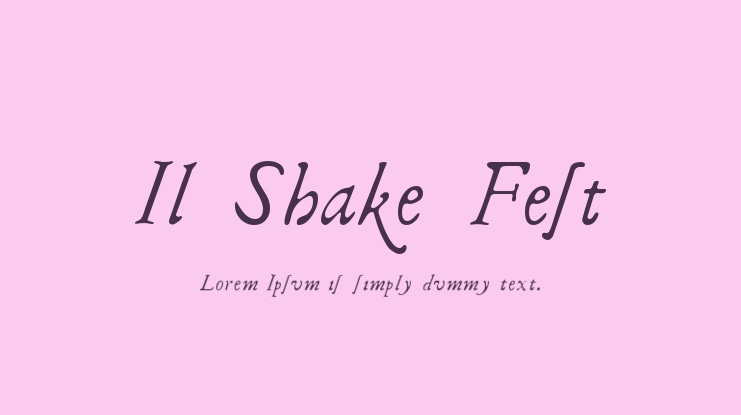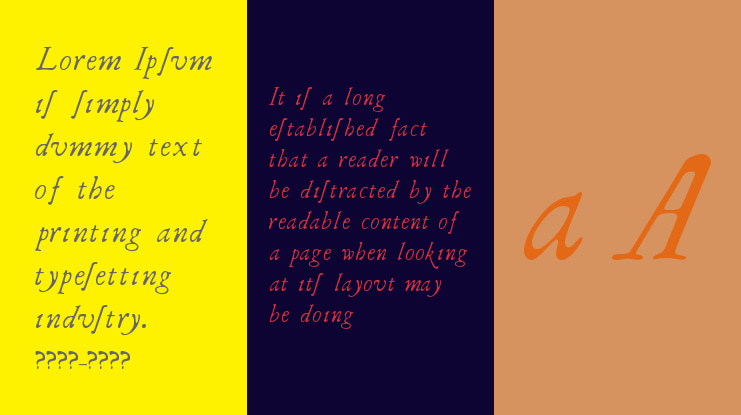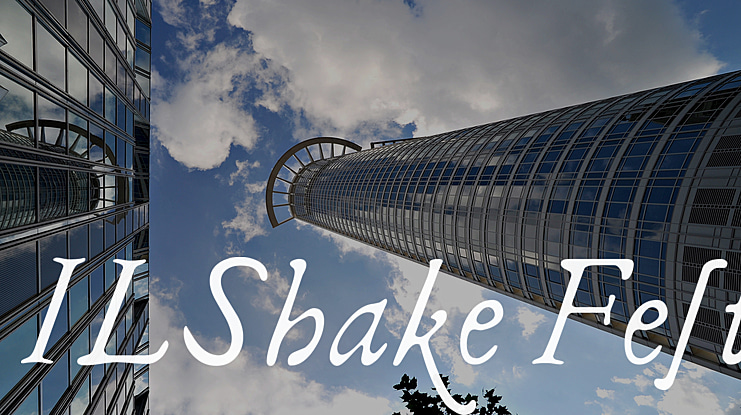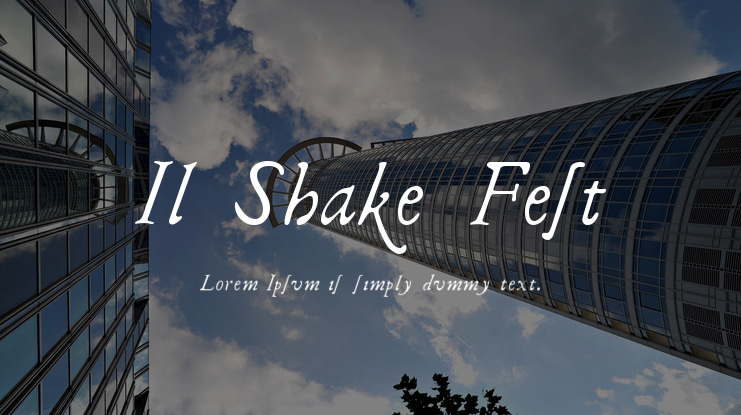
This font is based on the First Folio of Shakespeare. It was designed
primarily from the main titles (there are several distinct differences
between titles, text, quotes, character names, etc.). It's a specialized
font for specific uses, but I think you'll find it enjoyable to have
available, particularly for creating the correct "feel" in an instantly
recognizable way for marketing materials for Shakespeare plays or other items
relating to the period.
The main structure of this font will work best for limited use (it's great
for display work, like the titles of the plays). In order to have a font
that had some additional value, however, we added some characters to aid in
its use for text. Because it was expected that the use would be mostly for
titles, it has a more oblique feel than most of the text in the folio and the
caps are a little fancy for straight text use (but close to the italics used
for songs or character names). It _does_ have enough available to work with
some body text.
Keep in mind that you have to know how the letters are used in order to make
this font work properly. It would be totally impractical to take a
manuscript and just select all and switch to ILShakeFest font (yes, that's
the name of it). The main problem you would have would be in the usage of
the letter "s" which should have an entirely different look based on the
position within the word, etc.